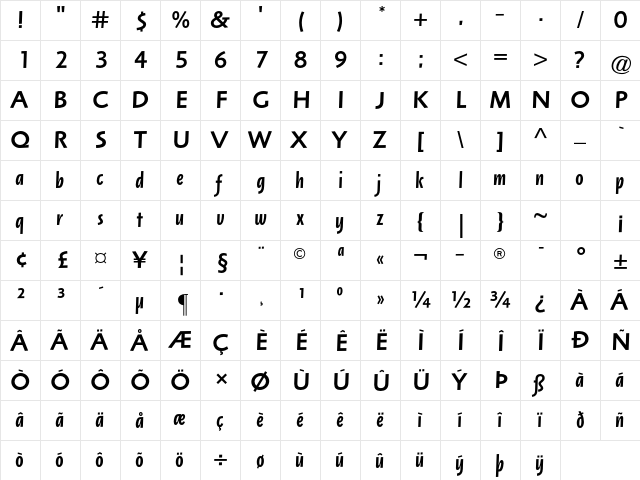
Arta Std Medium Italic
| Foundry | International Typeface Corporation |
| Designer | David Quay |
Design Context for Arta Std Typeface
Arta Std takes a measured approach to typography — its balanced proportions and neutral character make it a reliable workhorse for both digital and print work. The dynamic lean of this cut emphasises speed and emphasis in any layout.
Pro Tip: Use Arta Std for emphasis, pull quotes, and subheadings where its slanted energy can add rhythm to the layout.